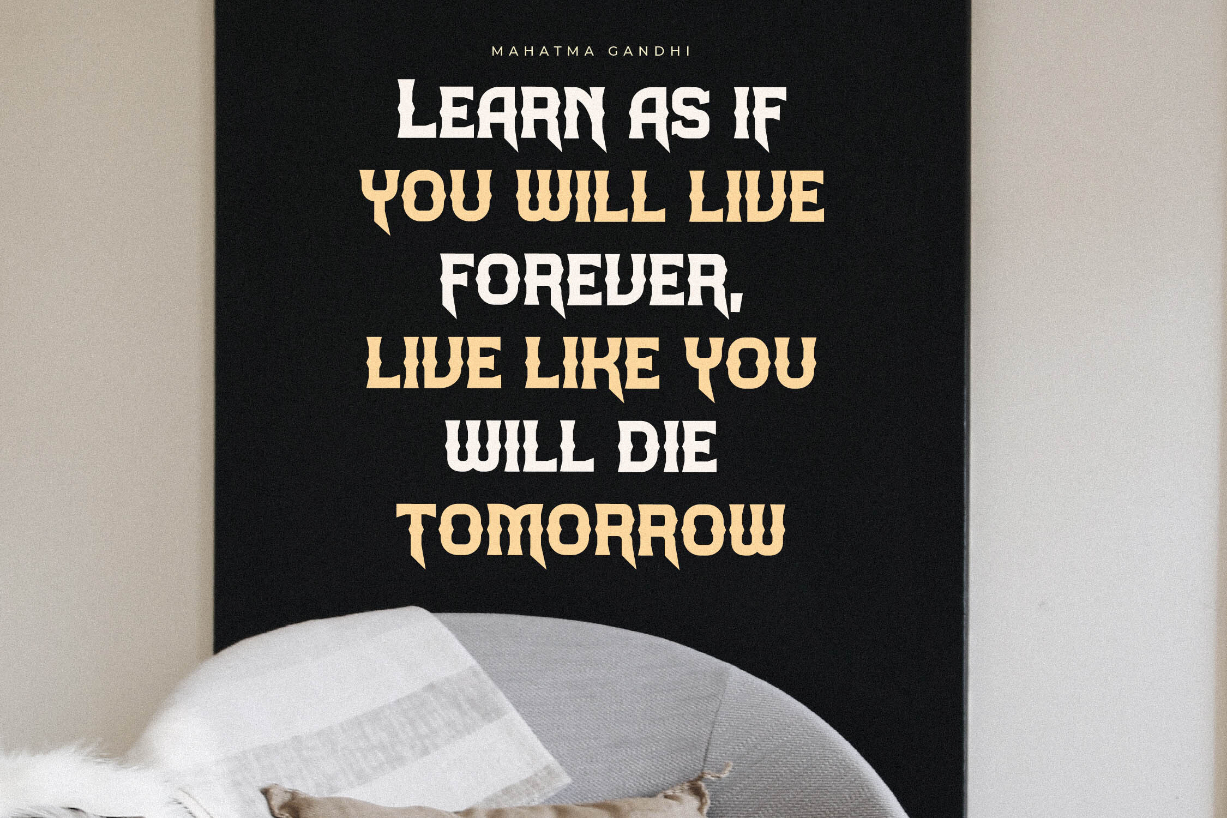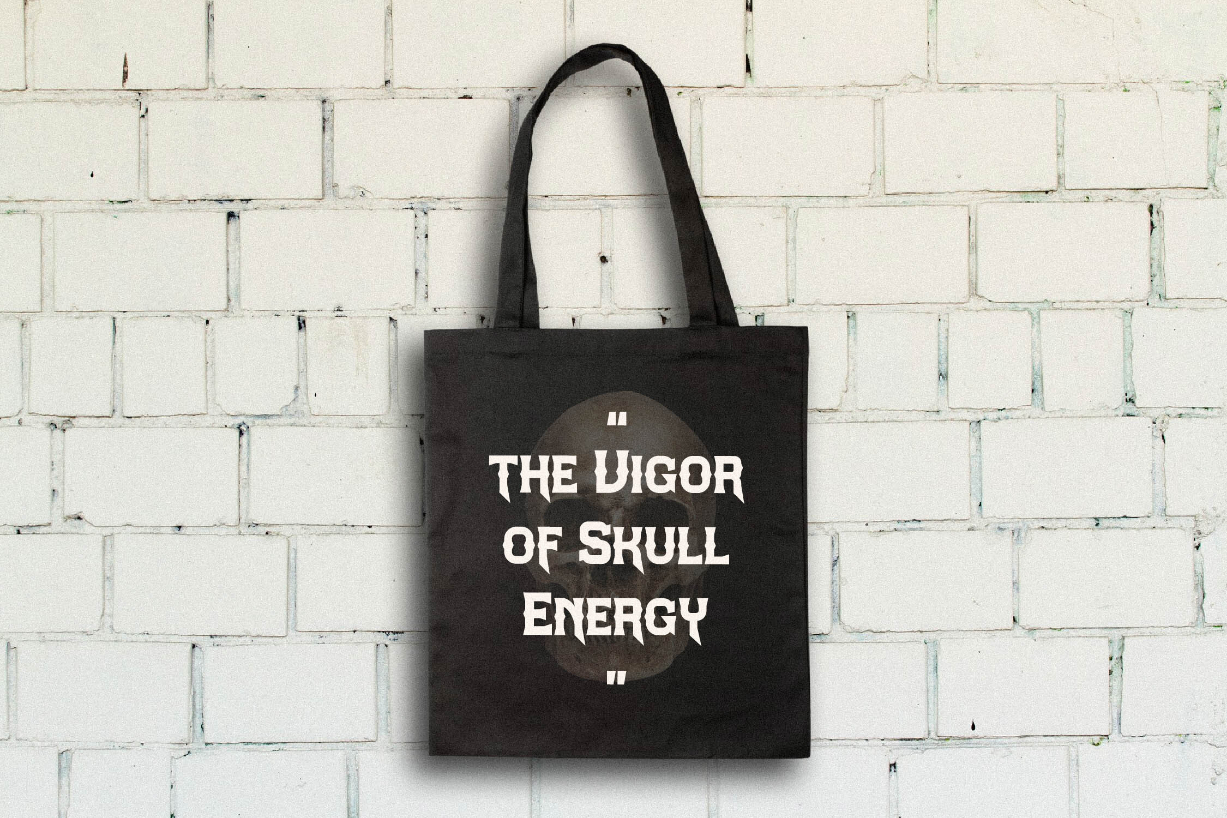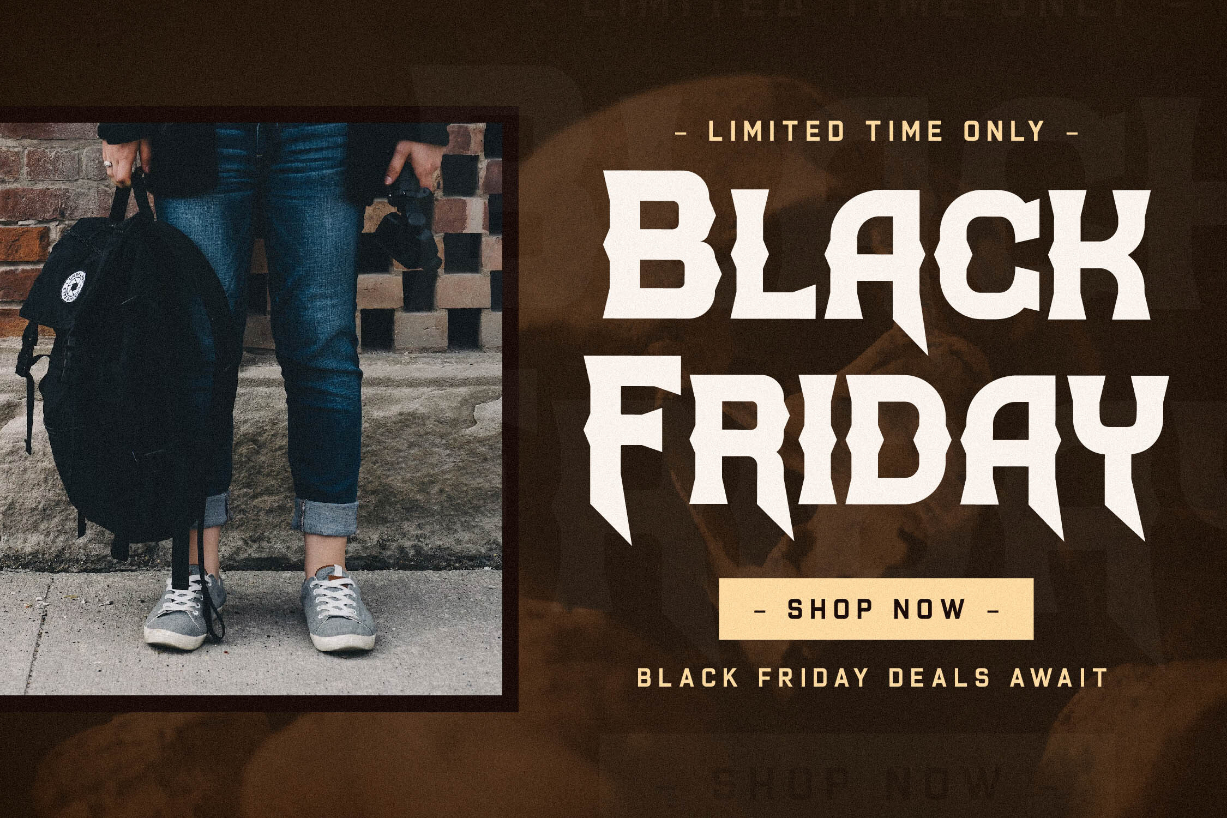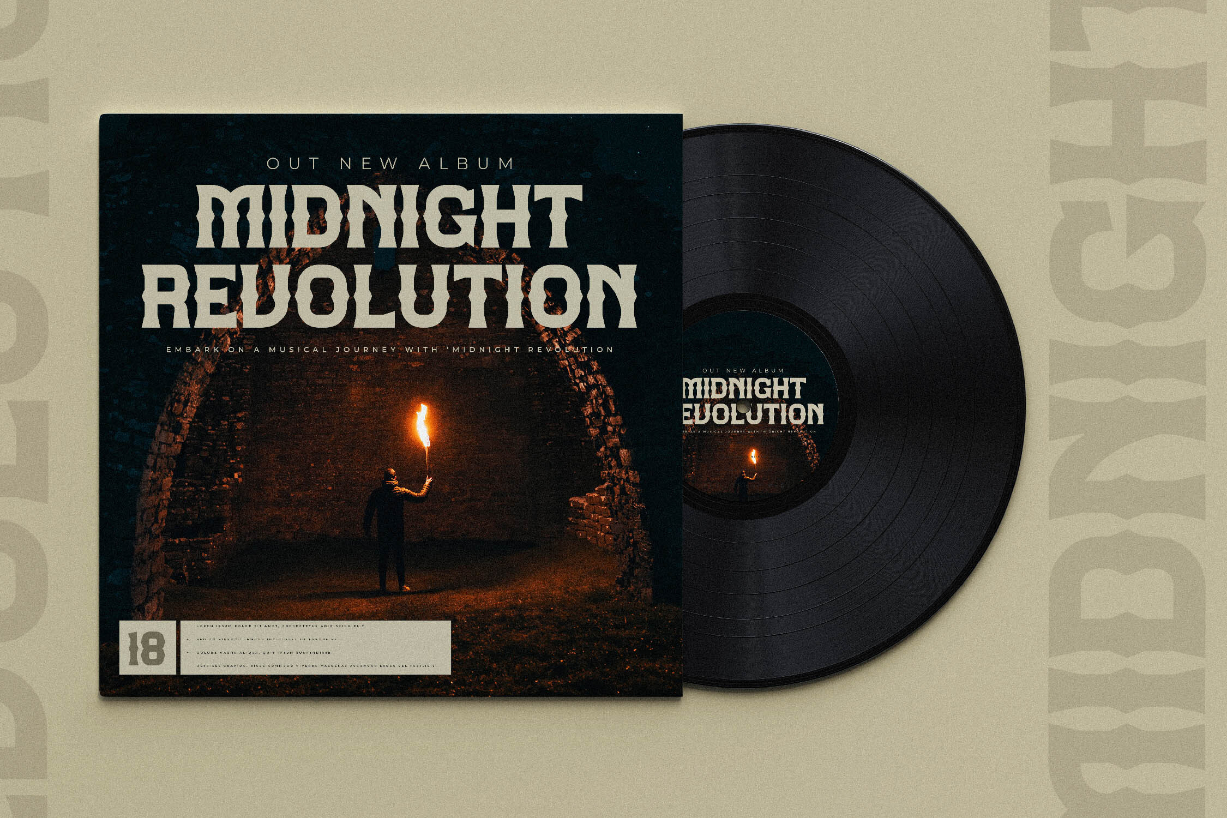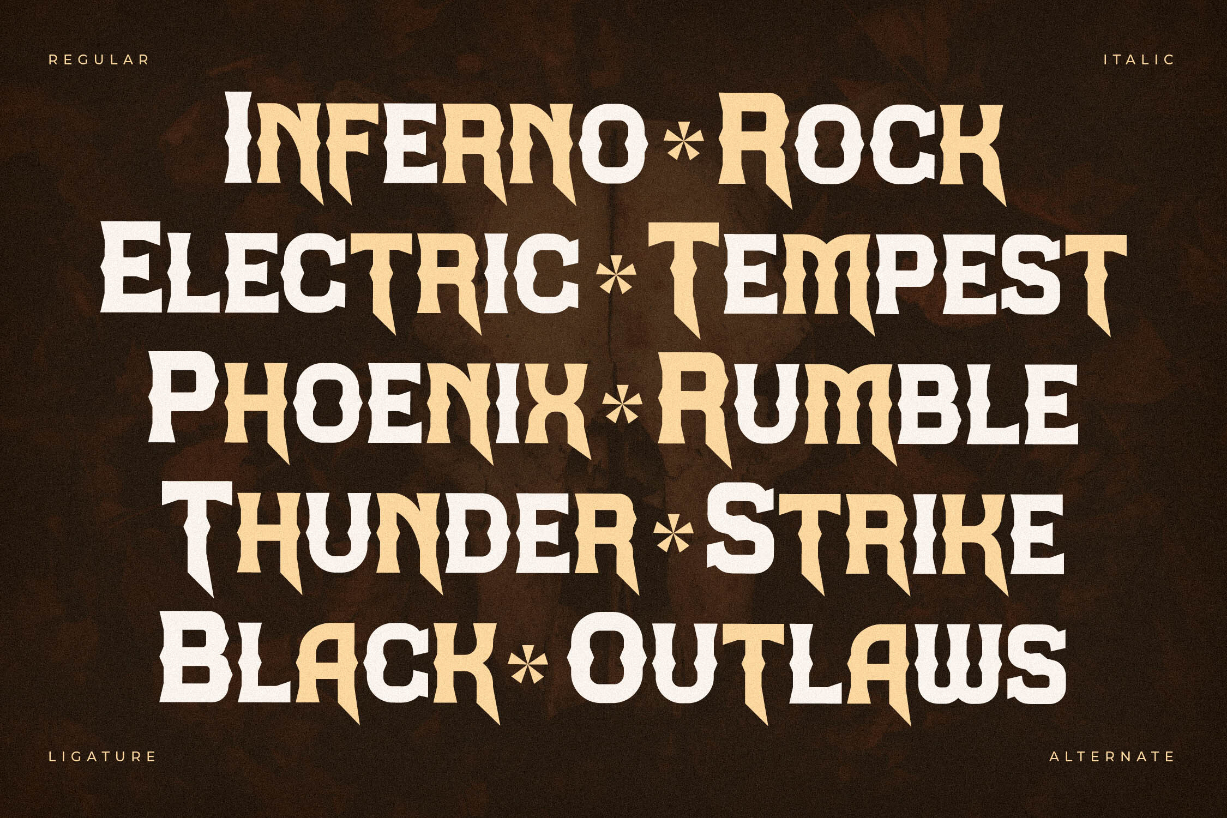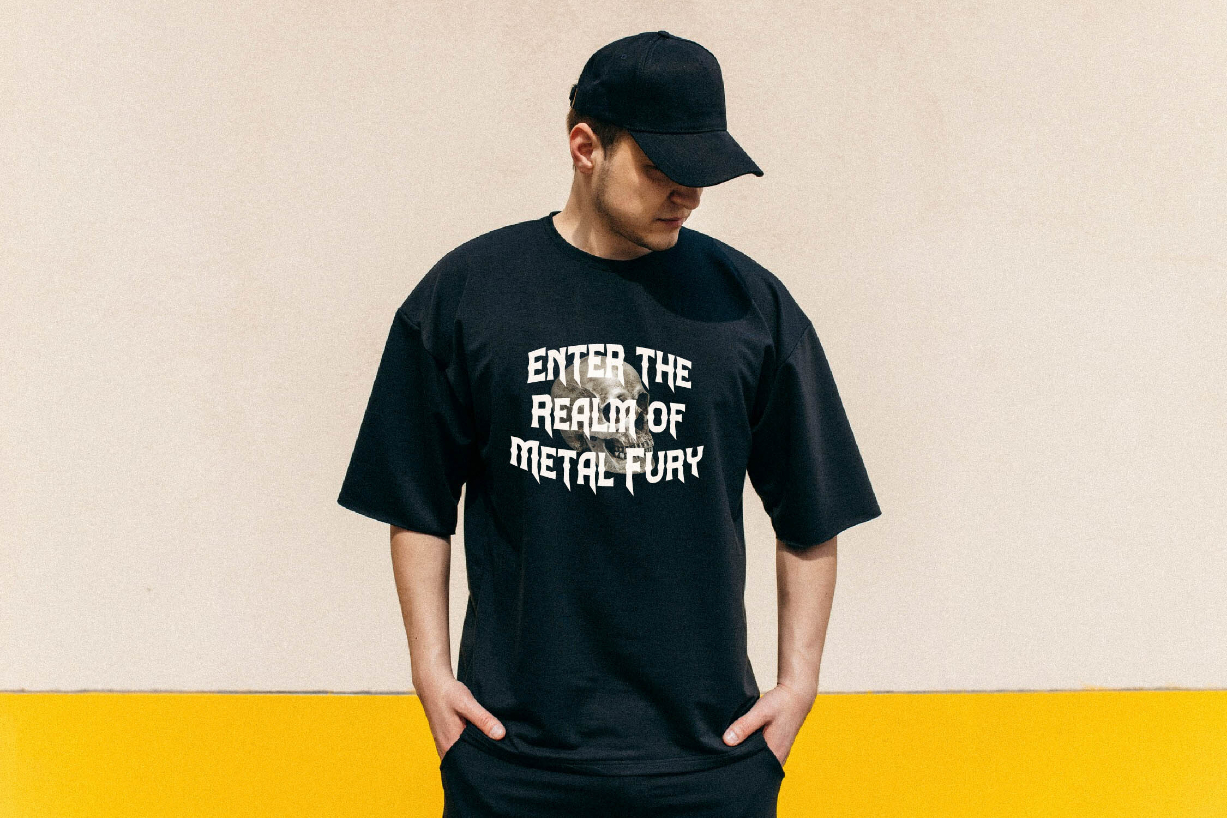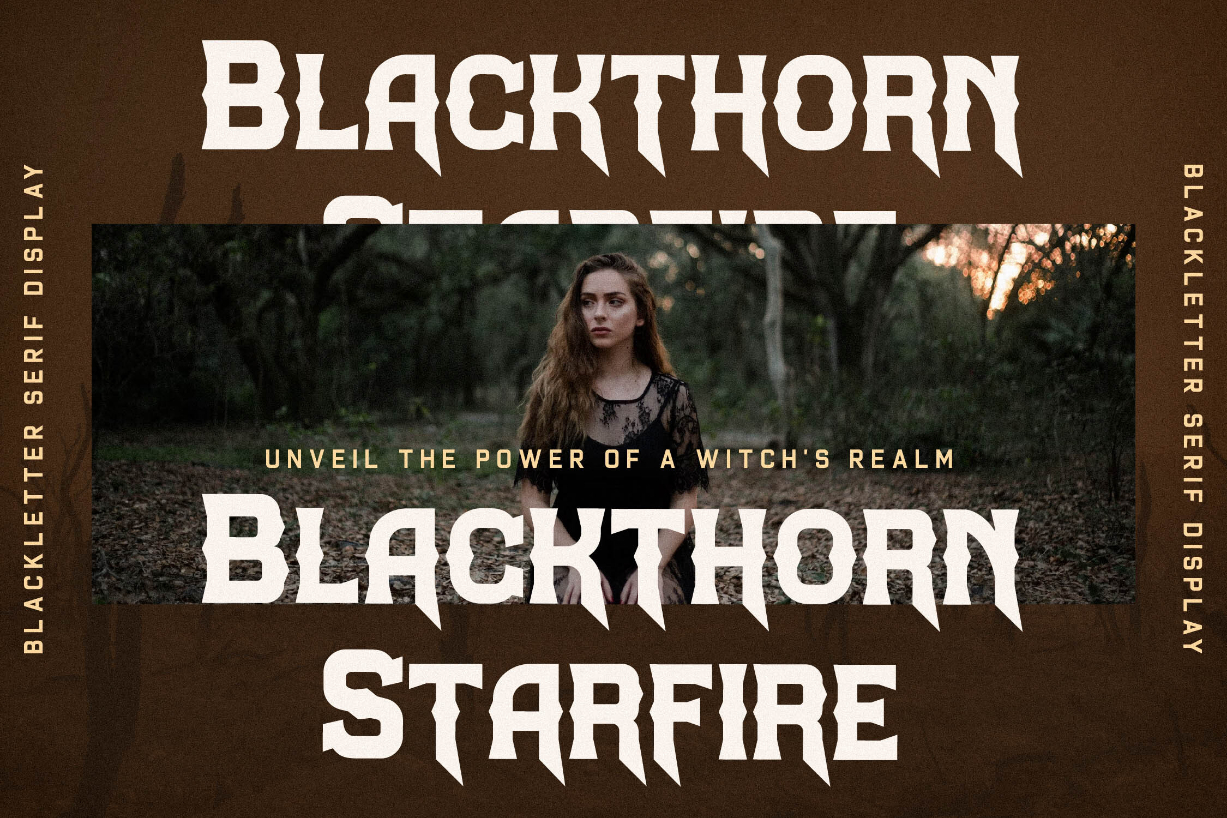
Midnight Blackfire Font
Midnight Blackfire is a bold and thick lettered blackletter font. Add it confidently to your projects, and you will love the results.